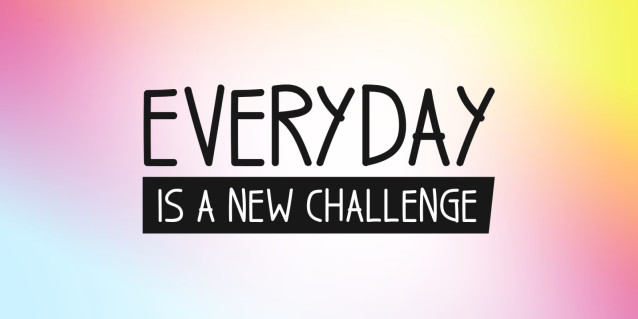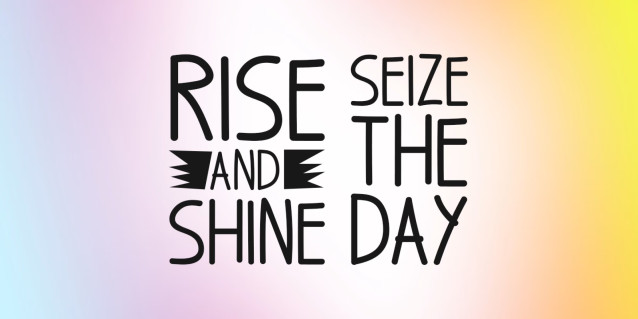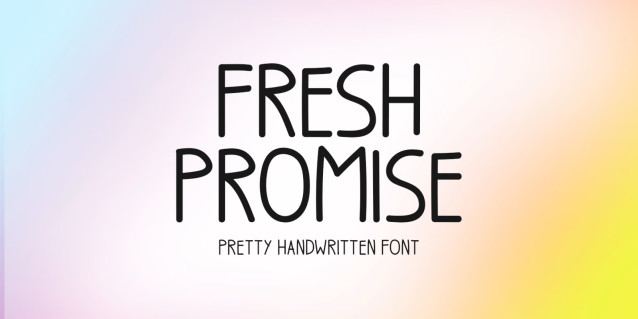
Fresh Promise Font
Fresh Promise is a clean, slim handwritten font with a natural flow and effortless charm. Its authentic strokes create a warm, personal feel while maintaining excellent readability. Perfect for branding, logos, social media, invitations, quotes, packaging, and signature-style designs, it adds a graceful handwritten touch to every creative project.